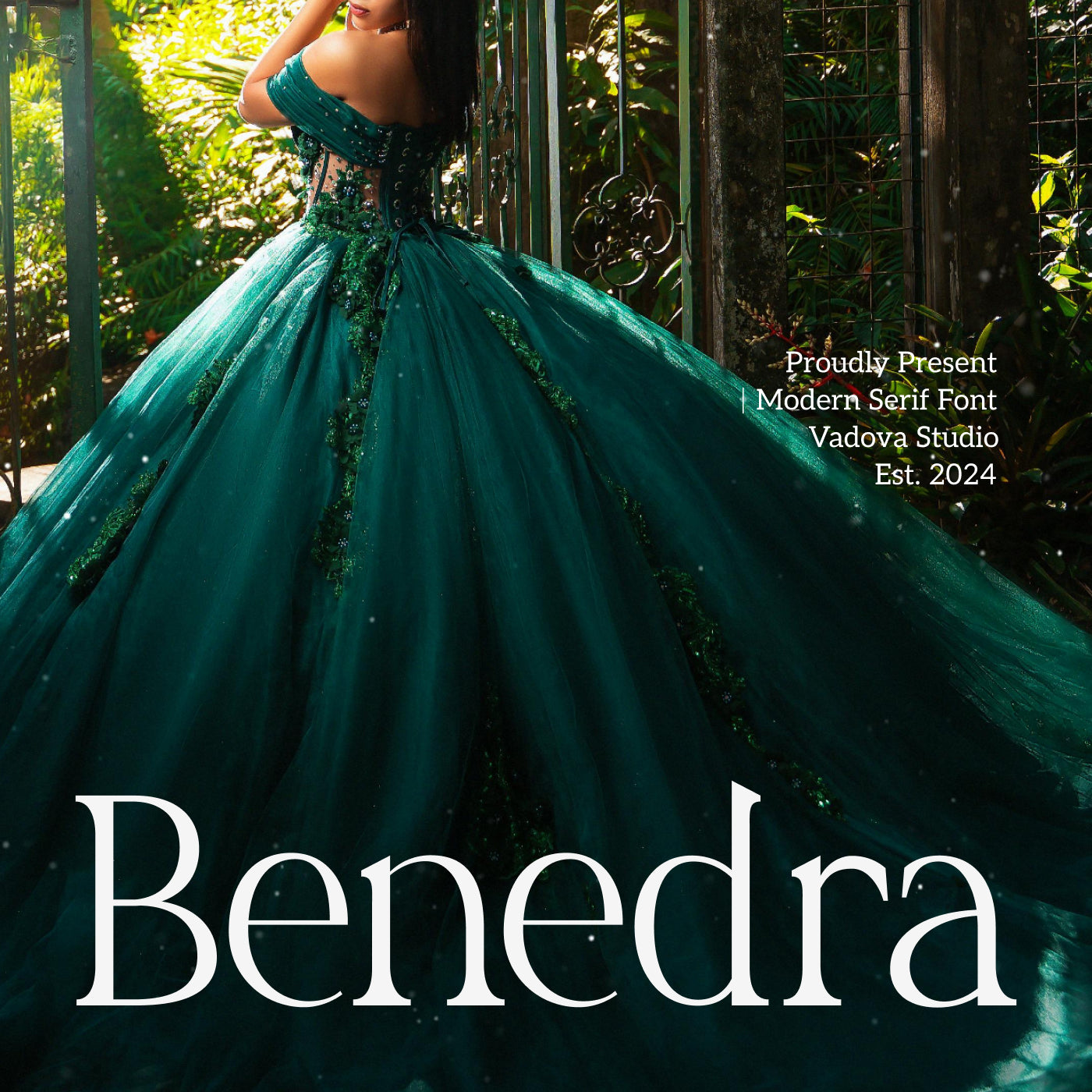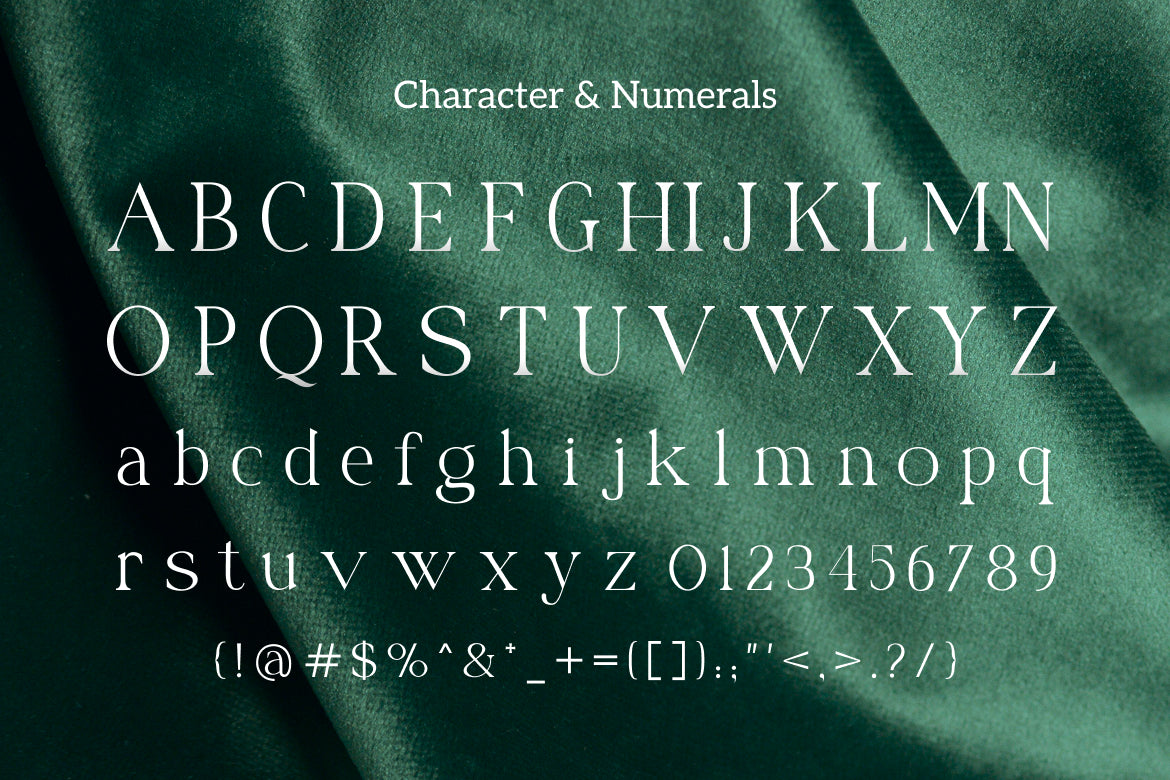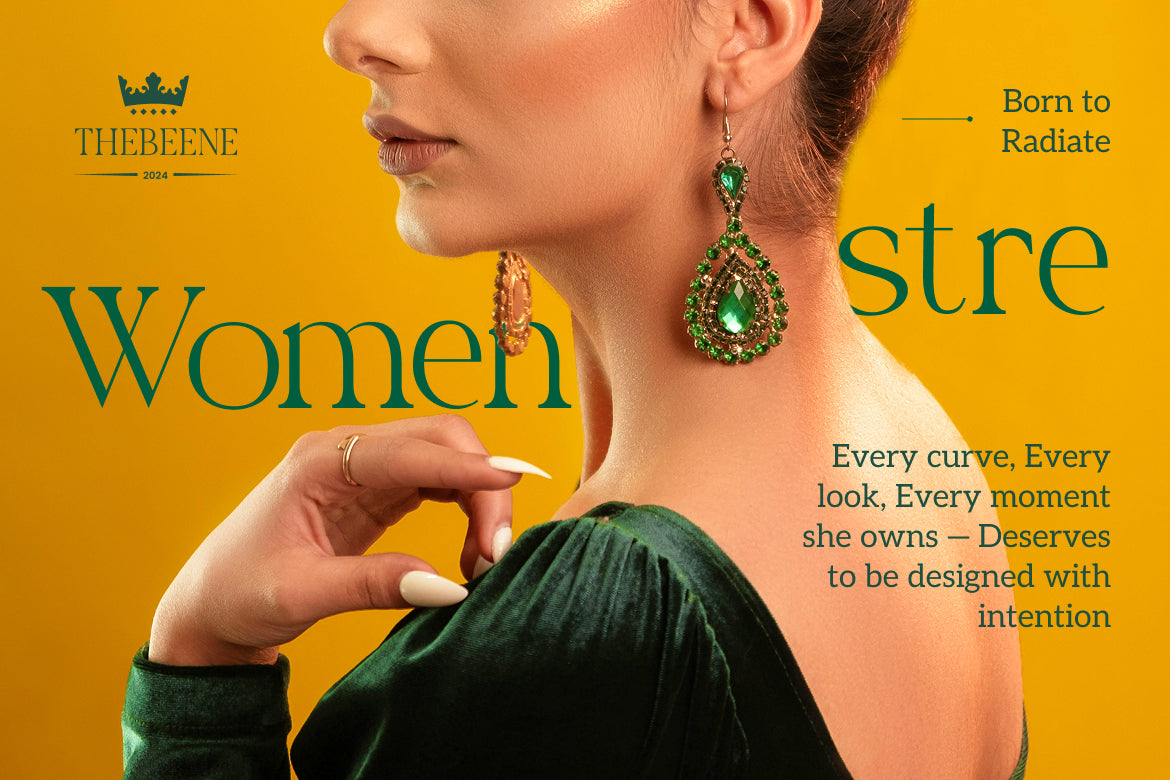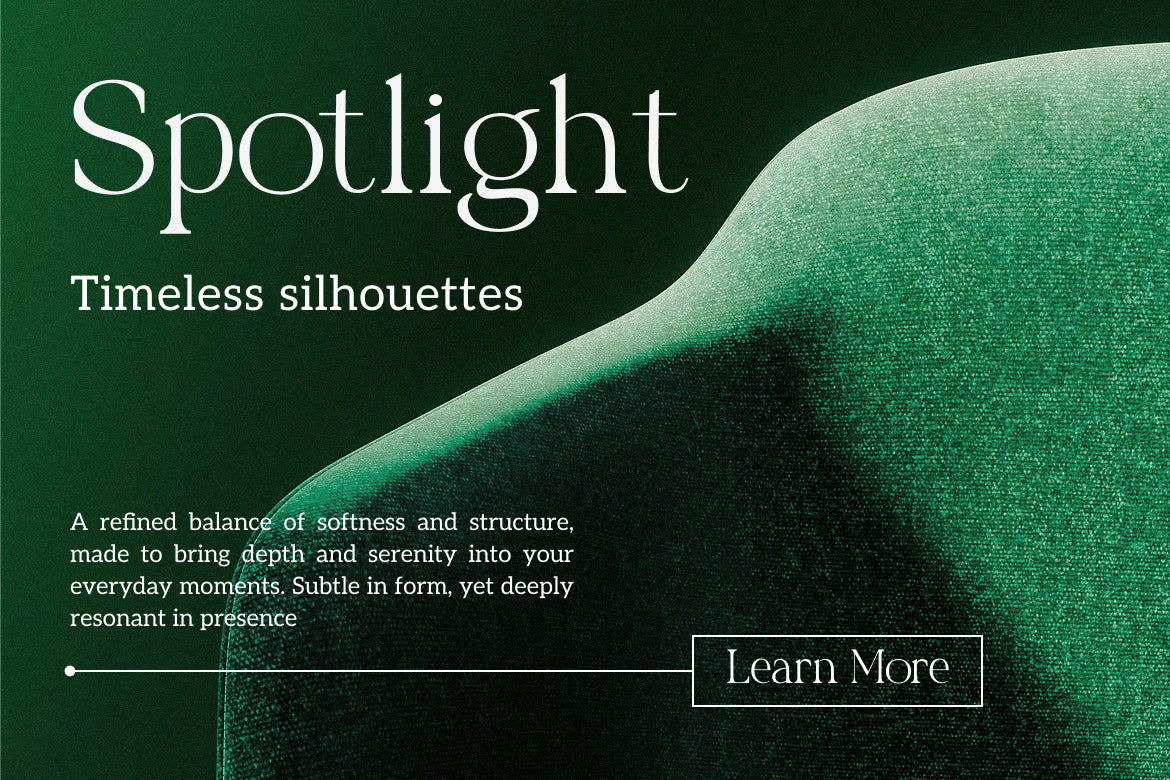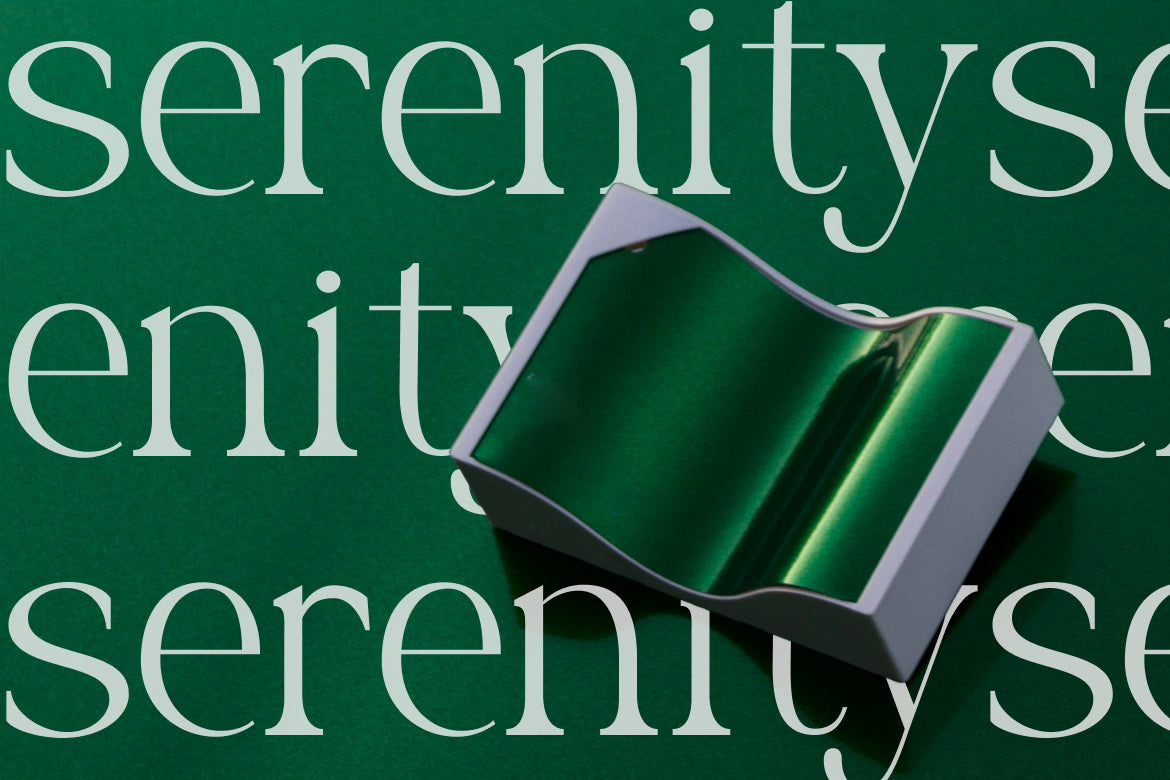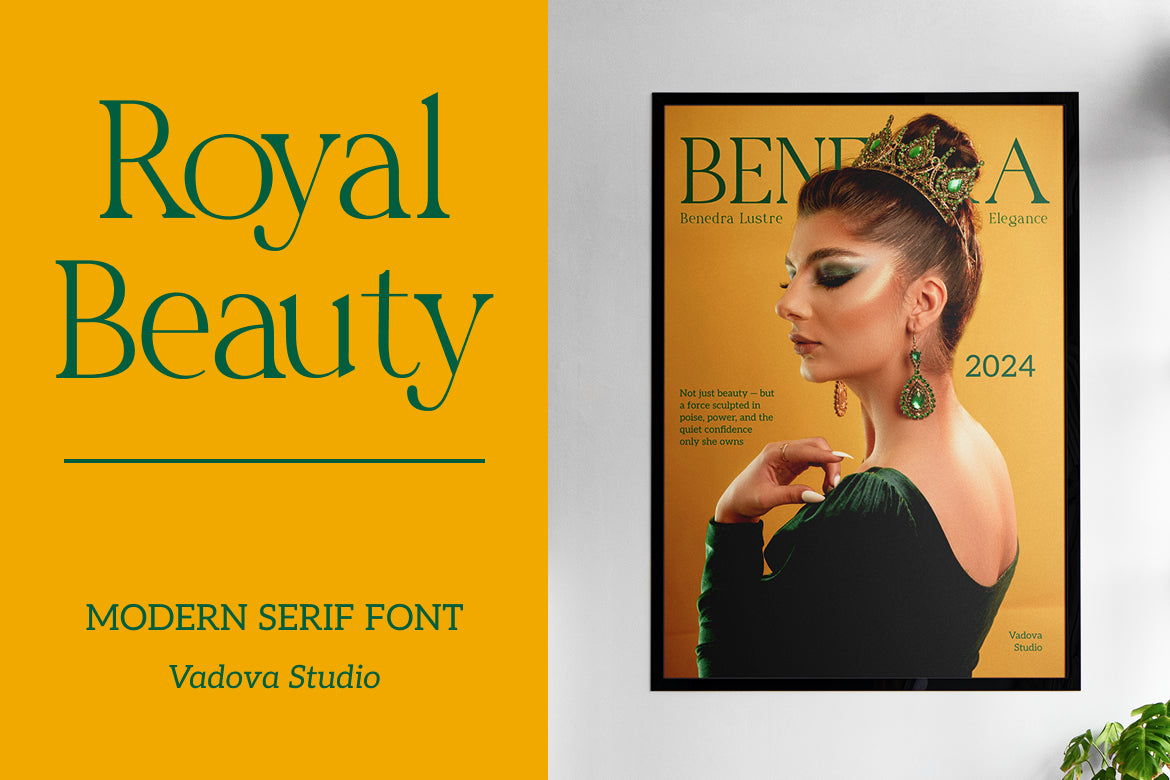
Benedra Modern Serif Font
Benedra Serif Font is a modern serif font that embodies classic elegance with a contemporary twist. Its refined and graceful aesthetic creates a sophisticated and luxurious vibe, perfect for making a lasting impression. This font's intended market vibe is ideally suited for high-end fashion, luxury lifestyle brands, wedding and event stationery, editorial publications, and refined digital presence. The letterform structure is characterized by its balanced proportions, subtle serifs, and clean lines, offering a blend of traditional beauty and modern readability. Benedra is best used for branding, editorial titles, invitations, sophisticated advertising, and any design requiring a touch of refined class.
Benedra Modern Serif Font is a serif typeface featuring balanced proportions, subtle serifs, and clean lines. It includes uppercase and lowercase characters, numerals, and punctuation, and is available in TTF, OTF, and WOFF formats.